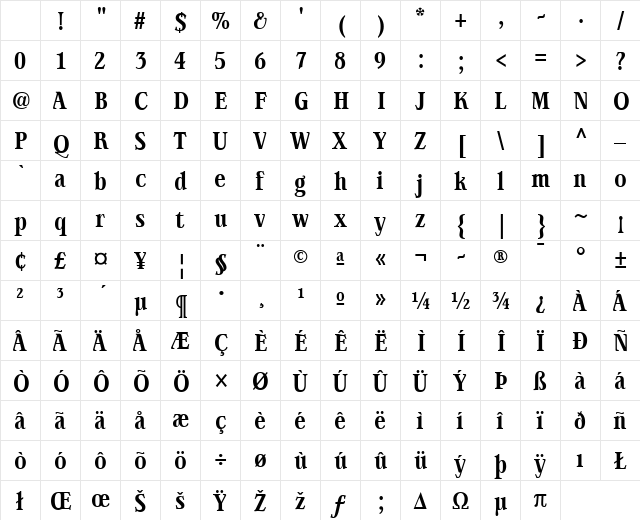
AIAlign is a composed and adaptable typeface that performs quietly and consistently across a wide range of design contexts.
Pro Tip: Use AIAlign in both headline and body roles to test its range before committing to a single application.